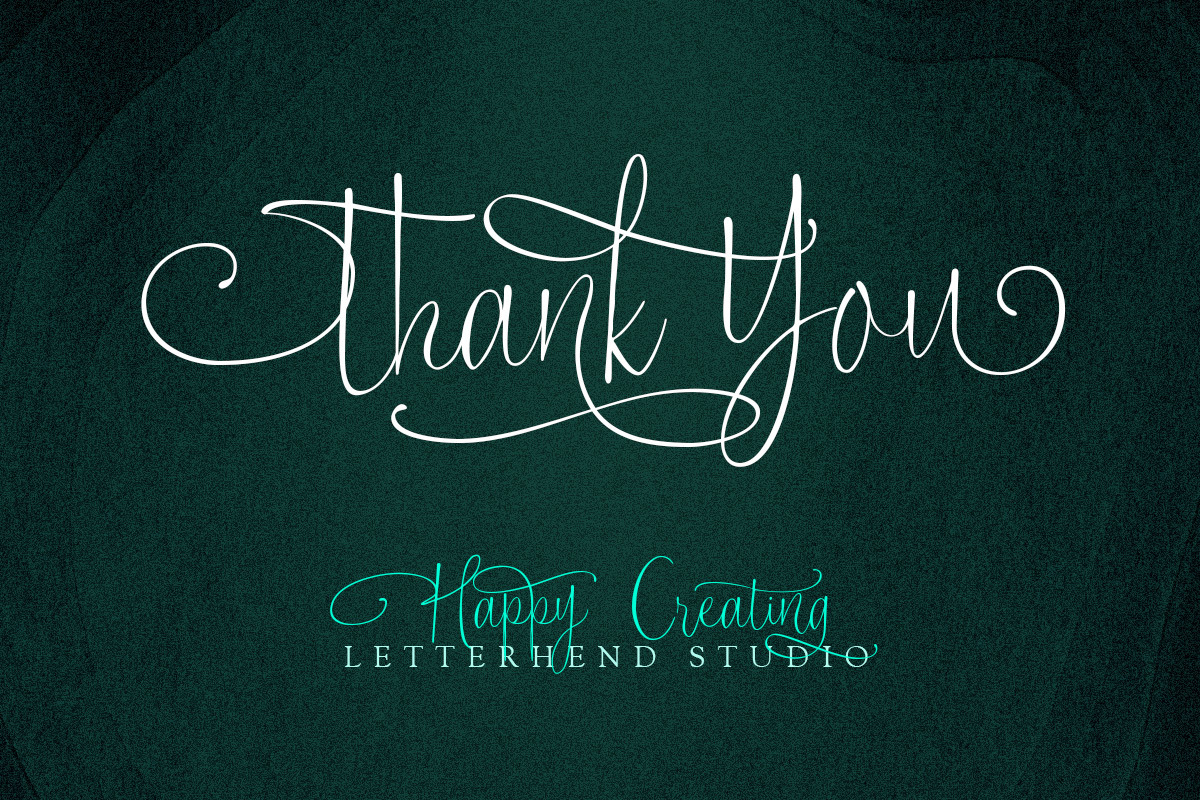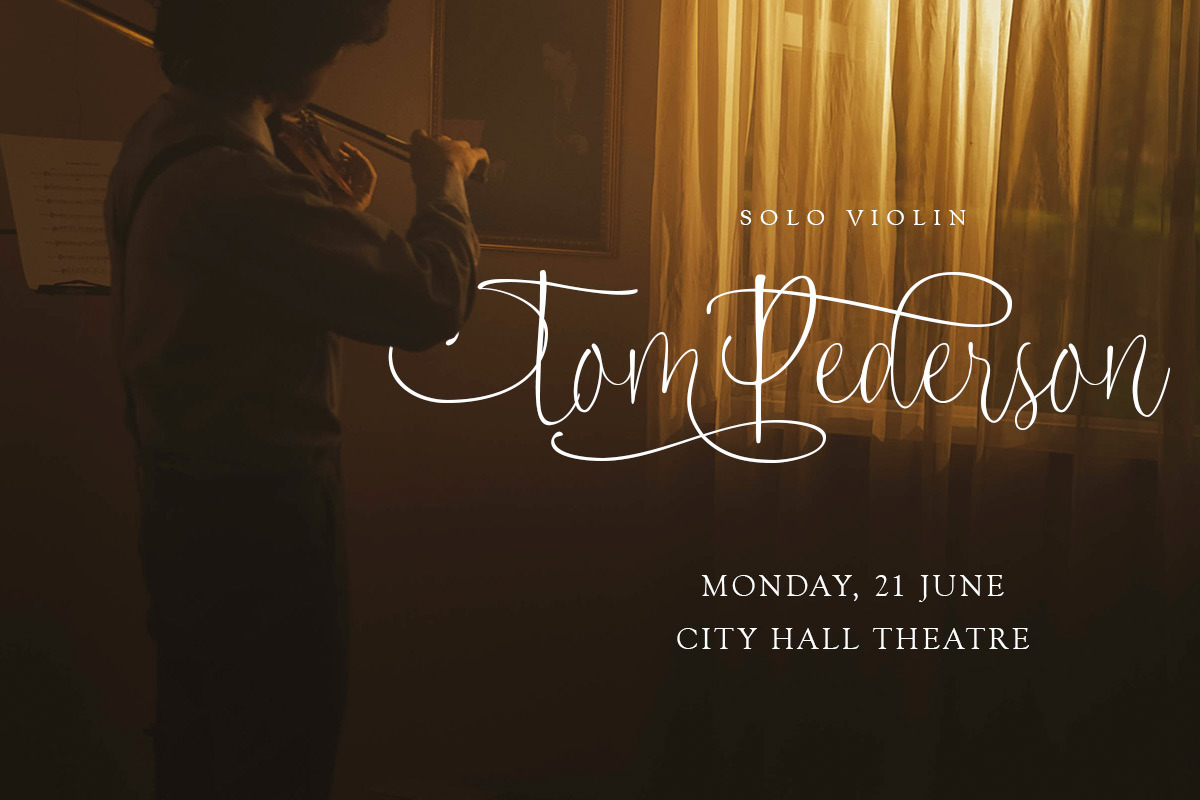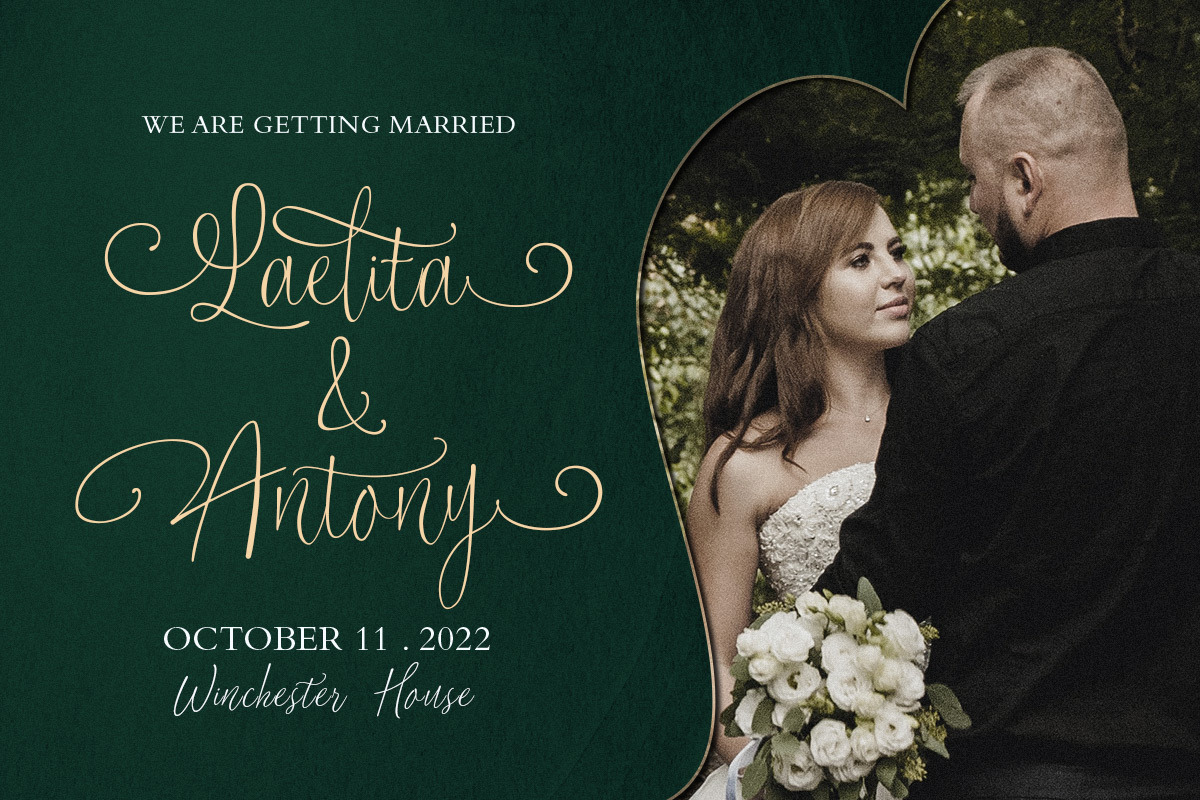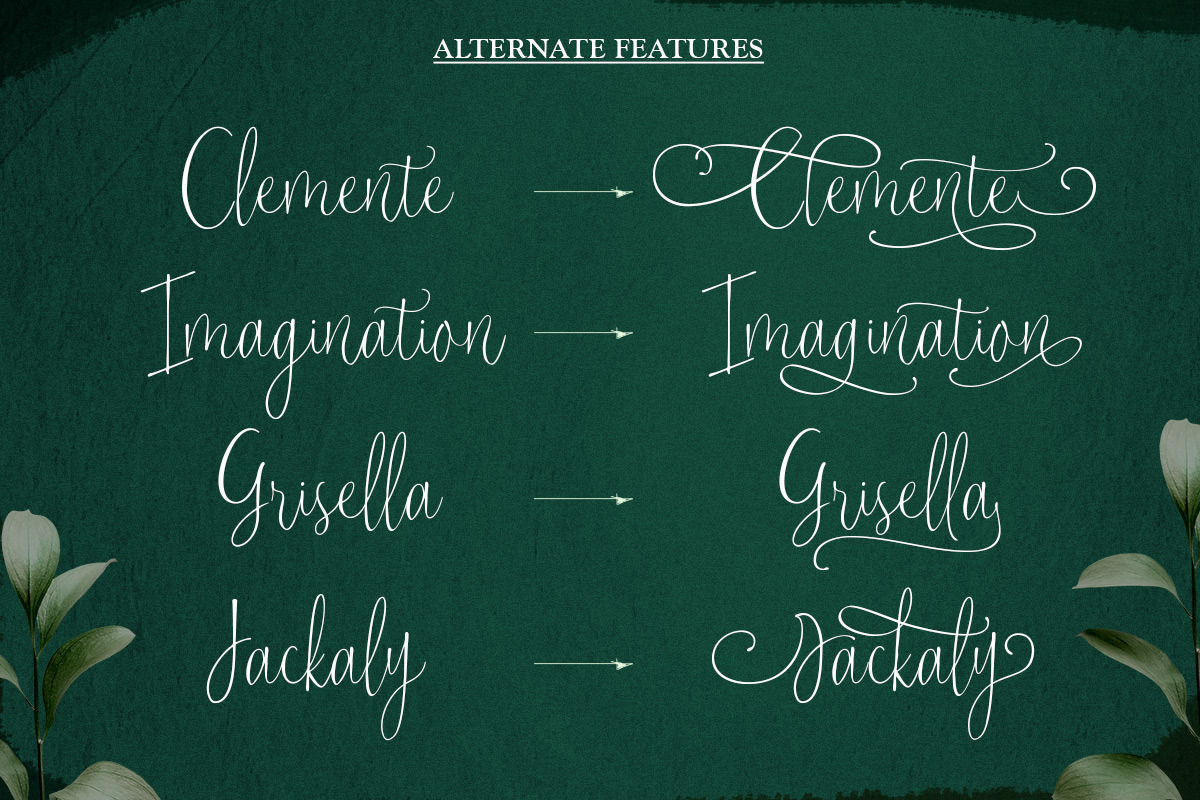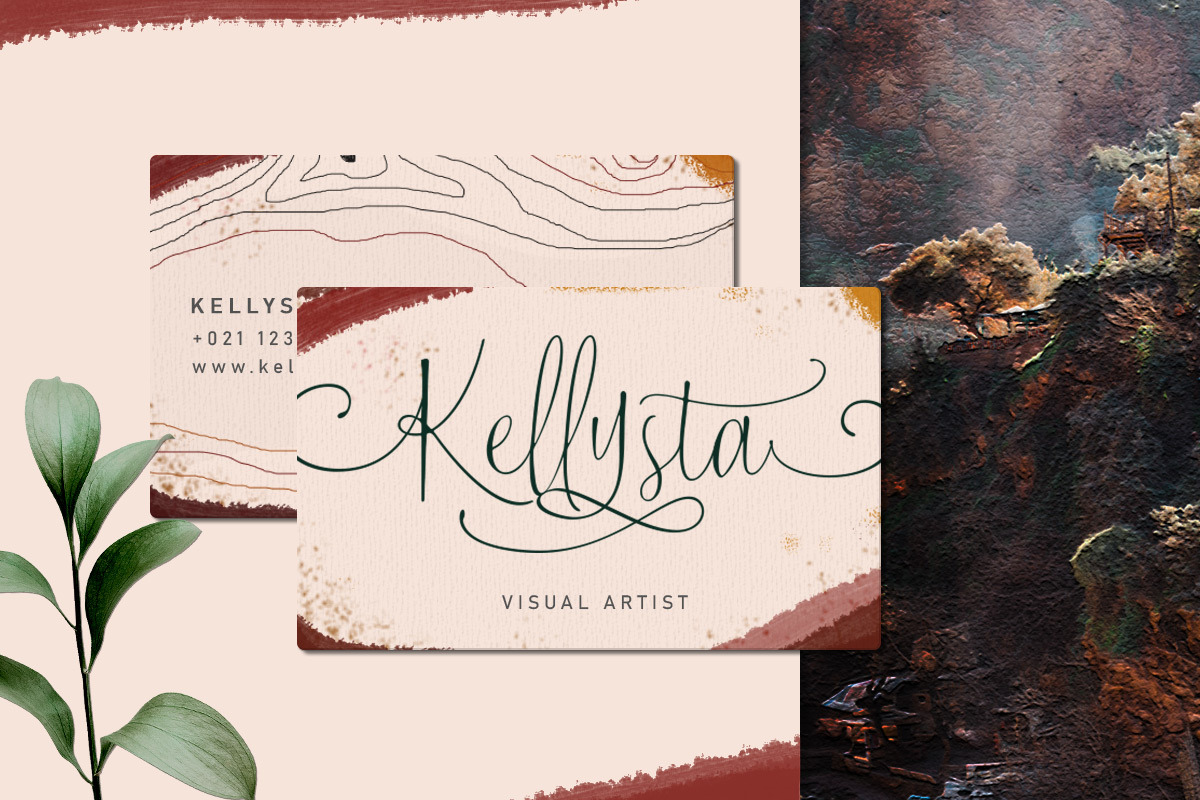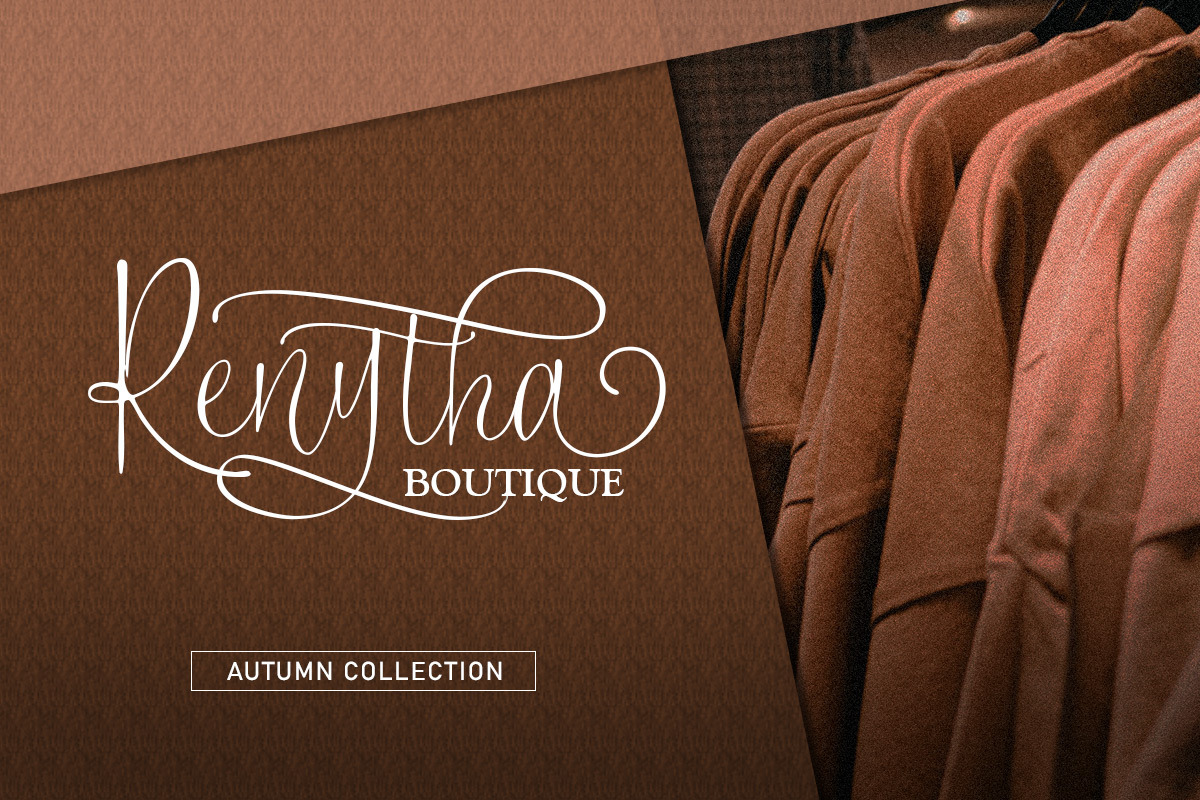
Lucky Spark Script
Introducing, Lucky Spark Script - an enchanting script. What makes this font unique than the other is its beautiful swashes which will make the lettering looks customized. This type of font perfectly made to be applied especially in logo, and the other various formal forms such as invitations, labels, logos, magazines, books, greeting / wedding cards, packaging, fashion, make up, stationery, novels, labels or any type of advertising purpose.
- alternates and ligatures
- swashes